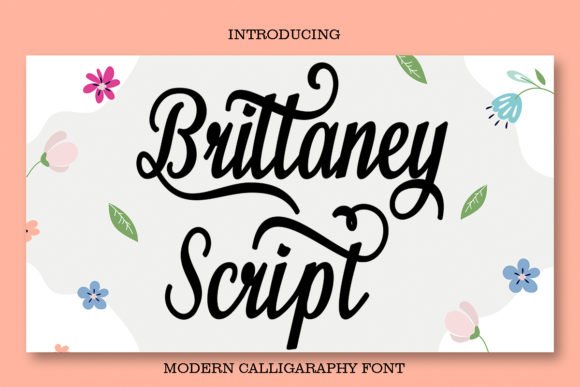
The Perfect Touch: Elevating Your Designs with Brittaney Script Font
Have you ever stared at a blank page, struggling to find the perfect font to bring your creative vision to life? It’s a feeling many designers know all too well. But what if I told you that there’s a font that can make all the difference? A font that’s as elegant as it is versatile, and can add a touch of sophistication to even the most mundane designs.
Meet Brittaney Script Font, a beautifully crafted handwritten font that’s sure to elevate your design projects to the next level. With its cursive and flowing lines, this font is perfect for adding a personal touch to your work. Whether you’re designing a wedding invitation, a branding package, or a social media post, Brittaney Script Font is sure to impress.
Brittaney Script Font Key Features
- Unique Characteristics: Elegant, cursive script with subtle flair and connection between letters
- Font Style: Script, Calligraphy, and Handwritten
Brittaney Script Font Review
Overall, I think Brittaney Script is a lovely font for a feminine or whimsical design. ✨ The cursive script style gives it a romantic touch that’s perfect for wedding invitations, baby announcements, or other projects that need a soft, delicate feel. The font’s elegant and refined appearance makes it a great choice for creating a sophisticated atmosphere.
However, I do have some reservations about this font. ⚠️ Firstly, I think the font’s legibility could be improved, especially at smaller font sizes. Some of the letters can be difficult to read, especially for those with vision impairments. Additionally, the font’s complexity might make it challenging to pair with other fonts or design elements.
Here are some specific pros and cons of the Brittaney Script font:
- ✨ Elegant and refined appearance
- ✨ Perfect for feminine or whimsical designs
- ⚠️ Limited legibility at smaller font sizes
- ⚠️ Complex design might be challenging to pair with other fonts
Overall, I think Brittaney Script is a great choice for designers who are looking for a soft, delicate font with a romantic touch. However, it may not be the best option for projects that require high legibility or simplicity.
Getting the Most Out of the Brittaney Script Font
To get the most out of the Brittaney Script Font, try using it for:
– Handwritten-style quotes and captions
– Whimsical and playful designs
– Personalized gifts and cards
– Any design where a unique, handwritten feel is desired.
The Brittaney Script Font is perfect for designs that require a touch of elegance and sophistication, such as:
– Wedding invitations
– Baby shower invitations
– Birthday party invitations
– Personalized gifts and cards
– Any design that needs a unique and handwritten feel.
Alternatives to Brittaney Script Font for Designers
Pacifico is a beautiful, elegant script font that works well for formal and creative projects. It features a soft, flowing design that is perfect for headings, titles, and quotes. Pacifico is a more refined and polished alternative to Brittaney Script Font, making it suitable for high-end branding and design projects.
Carolyna Pro is a modern script font that combines elegance with a touch of sophistication. It features a unique blend of soft and strong lines, making it ideal for use in logos, typography, and packaging design. Compared to Brittaney Script Font, Carolyna Pro has a more refined and versatile design, making it a great choice for designers who want a modern twist on a classic script font.
Great Vibes is a beautiful, handwritten script font that is perfect for creative and artistic projects. It features a unique, flowing design that is reminiscent of handwriting, making it ideal for use in quotes, titles, and headings. Great Vibes is a more casual and relaxed alternative to Brittaney Script Font, making it suitable for designers who want to add a touch of personality to their projects.